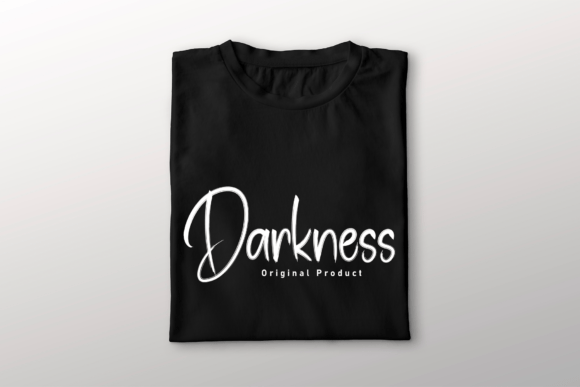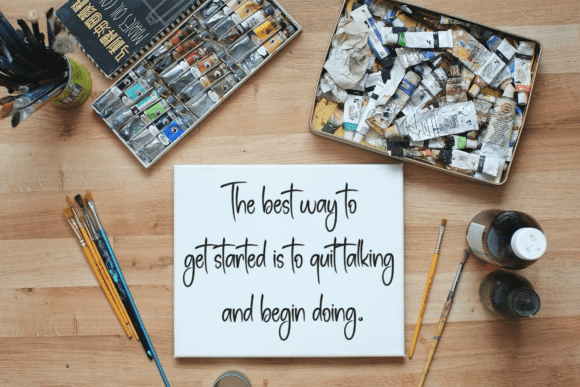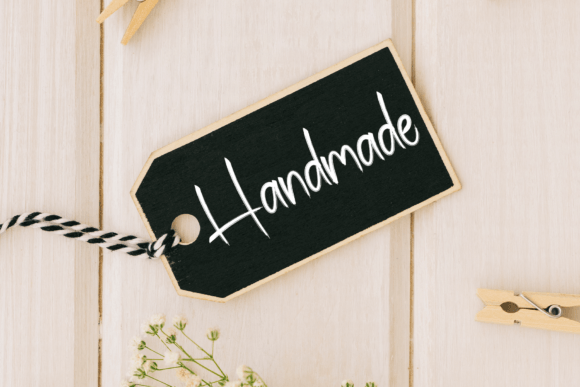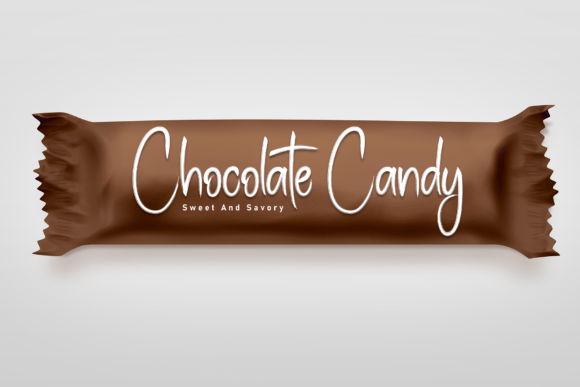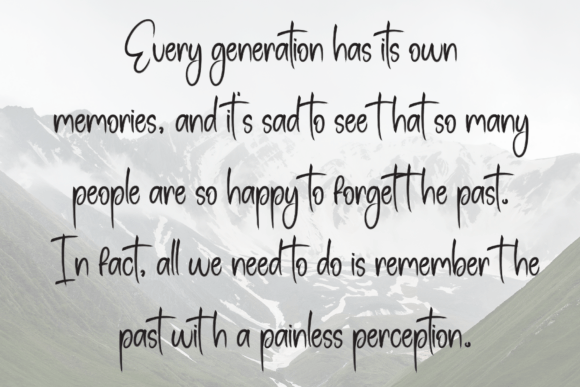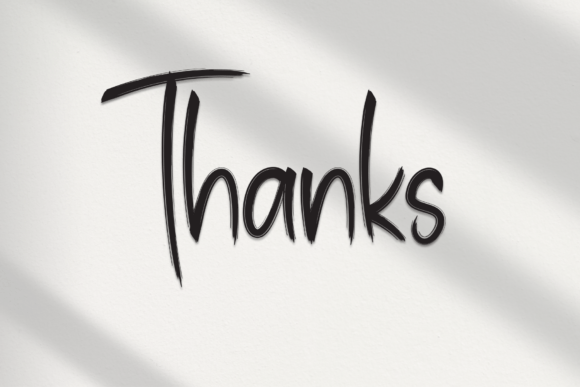
Introduction to Secret Yesterday Font
Secret Yesterday is a stylish and incredibly elegant script font.
Secret Yesterday is a stylish and incredibly elegant script font. It looks stunning on wedding invitations, thank you cards, quotes, greeting cards, logos, business cards and every other design which
Key Features of Secret Yesterday Font